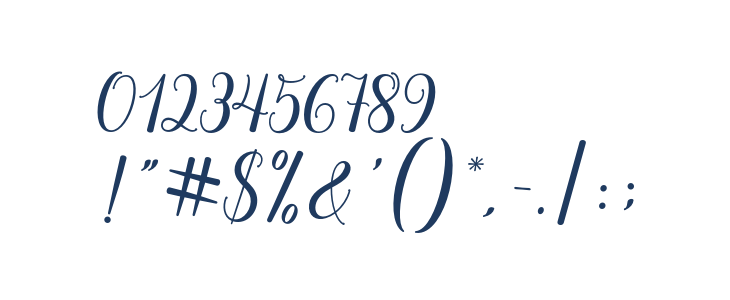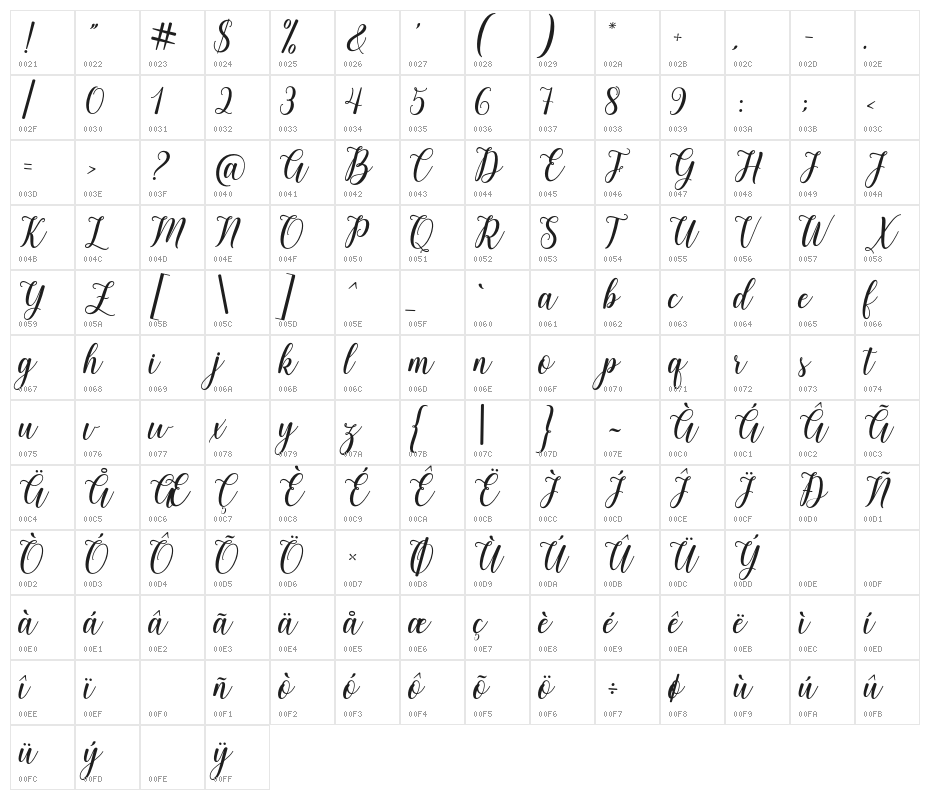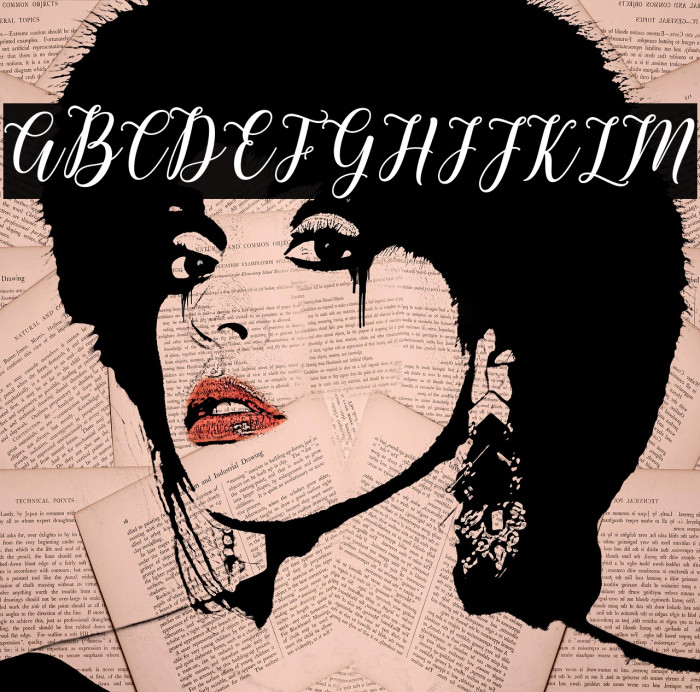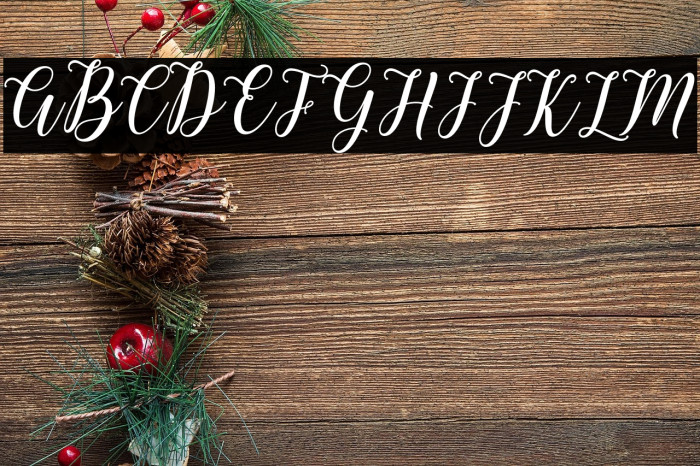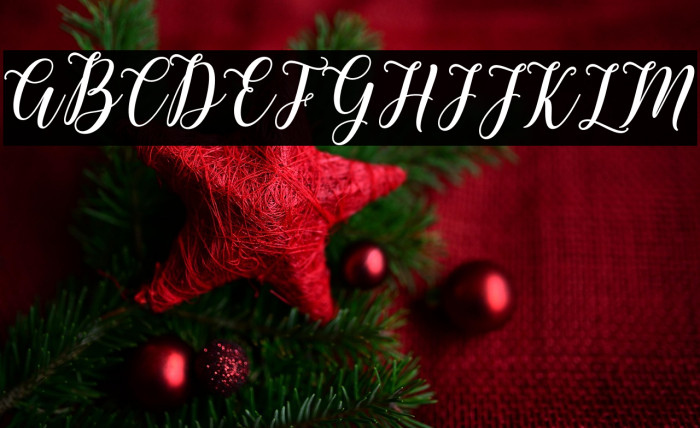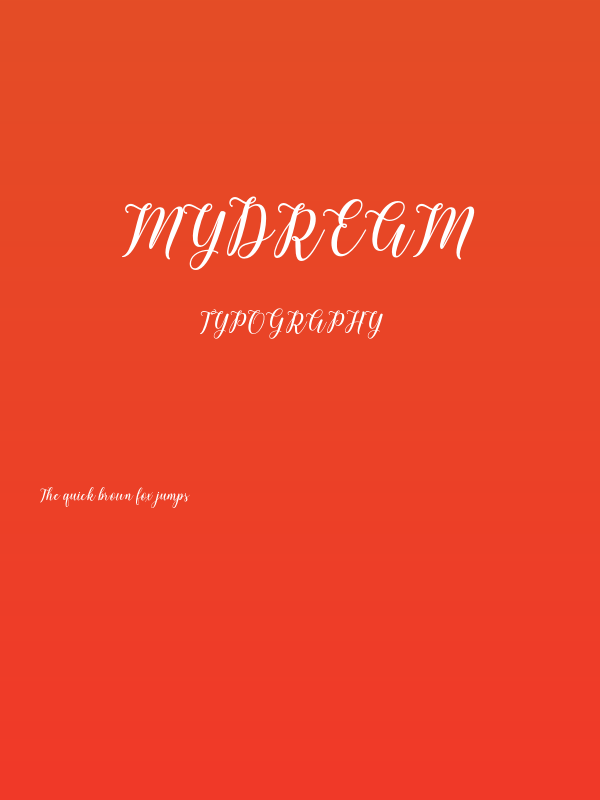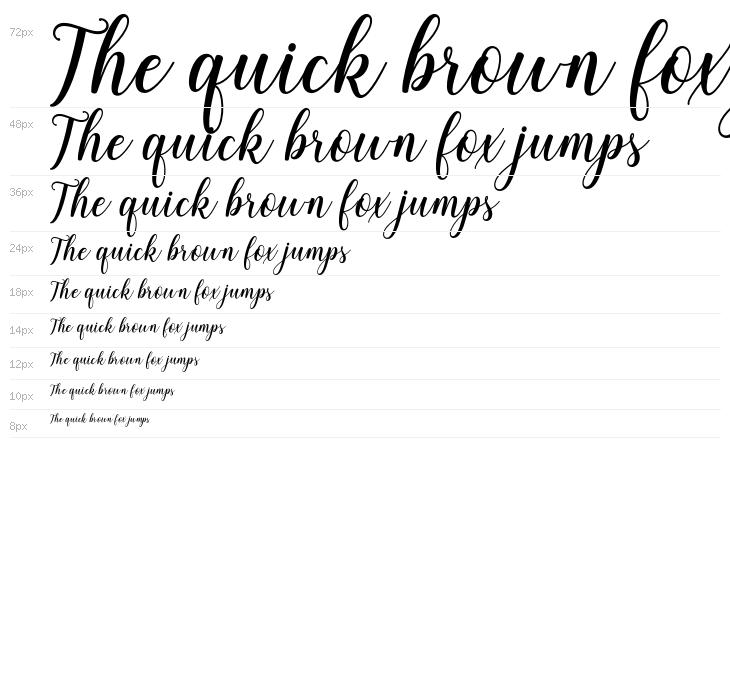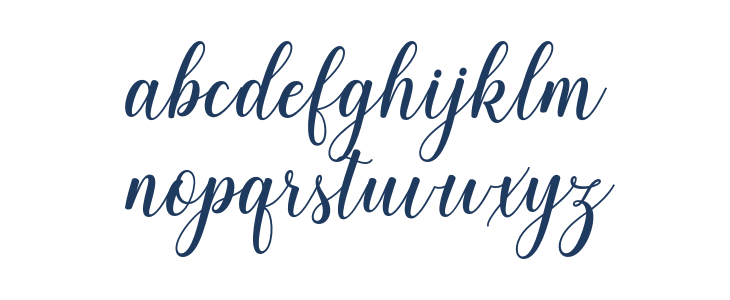
This elegant script font features flowing, interconnected letters that exude a sense of sophistication and grace. The uppercase letters are particularly ornate, with intricate loops and flourishes that add a decorative touch. The lowercase letters maintain a consistent style, with smooth curves and a slightly slanted orientation that enhances the script's fluidity. The numerals are designed to match the overall aesthetic, with a balanced mix of curves and straight lines. Special characters are thoughtfully integrated, maintaining the font's cohesive look. This font is ideal for projects that require a touch of elegance and refinement.
| Proposed Projects | Wedding invitations, luxury branding, elegant packaging, greeting cards, and upscale event posters. |